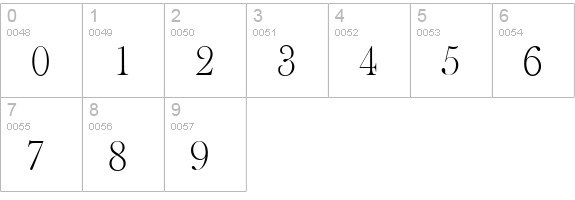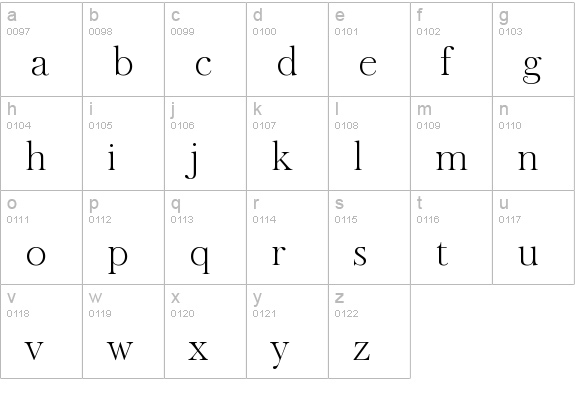
BaskerOldSerial-Xlight-Regular is the standard, neutral variant in the BaskerOldSerial typeface family \xE2\x80\x94 well suited to general body text, paragraphs, and standard typographic work.
BaskerOldSerial-Xlight-Regular font is a timeless and elegant typeface that exudes sophistication and charm. With its delicate serifs and slender letterforms, this font is perfect for adding a touch of class to any project. Whether you're designing a wedding invitation, creating a logo, or crafting a brand identity, BaskerOldSerial-Xlight-Regular font is sure to make a lasting impression. The best part? This exquisite font is available for free download at FontsMarket.com. You can easily access this stunning typeface and incorporate it into your designs without any cost. Don't miss out on the opportunity to enhance your projects with the beauty and grace of BaskerOldSerial-Xlight-Regular font. Download it now and elevate your design work to new heights.